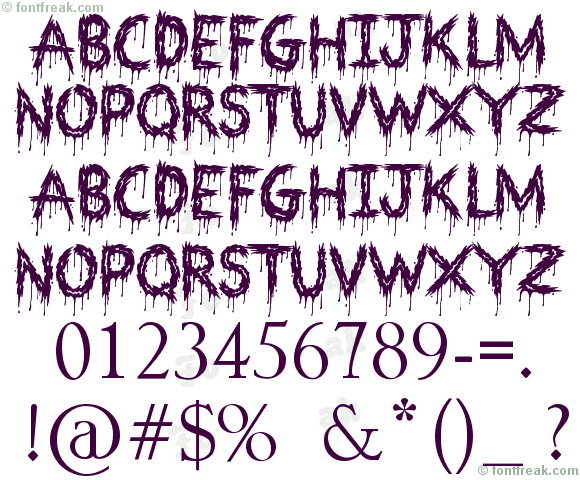
Bloodthirsty
The Bloodthirsty font, designed by Jonathan S. Harris, is a striking display typeface that falls within the decorative category. Its unique visual characteristics make it a standout choice for projects that demand attention and evoke strong emotions. The font features a bold stroke weight, enhanced by dripping elements that create a sense of urgency and drama. The high contrast between thick and thin lines adds to its visual impact, while the irregular spacing between letters contributes to a raw, edgy aesthetic that is both engaging and memorable.
Ideal for a variety of creative applications, the Bloodthirsty font is particularly effective for movie posters, Halloween-themed graphics, and music event flyers. Its dramatic style also makes it a compelling choice for tattoo designs, making it appealing to tattoo artists and enthusiasts alike. Additionally, this font can elevate the visual appeal of merchandise branding for niche businesses, especially those in the entertainment or alternative lifestyle sectors.
The target audience for the Bloodthirsty font includes graphic designers, content creators, and small business owners looking to make a bold statement in their designs. Whether you are crafting promotional materials or enhancing your brand's identity, this font offers a unique voice that captures attention.
What sets the Bloodthirsty font apart is its ability to convey a strong narrative through its design. The dripping effect and bold strokes create an atmosphere of intensity and excitement, making it an excellent choice for projects that aim to leave a lasting impression. For those seeking a distinctive typeface that embodies both creativity and boldness, the Bloodthirsty font free download is a must-have resource that can elevate any design project.